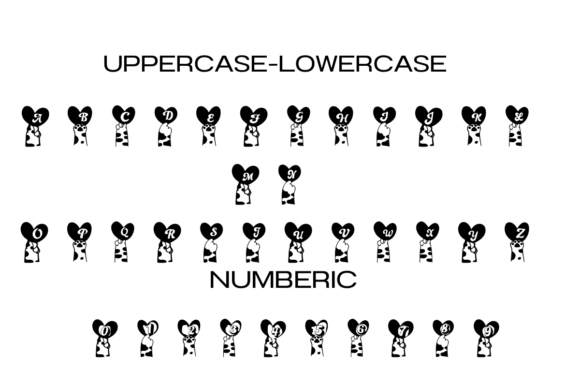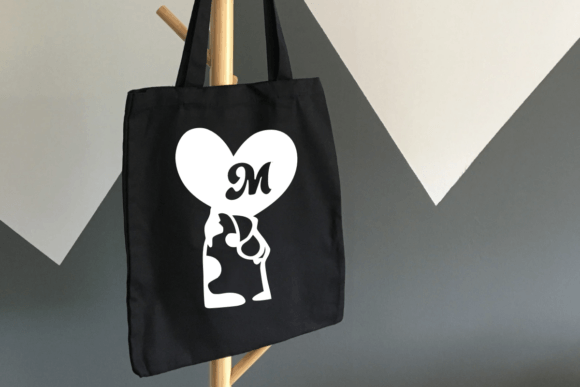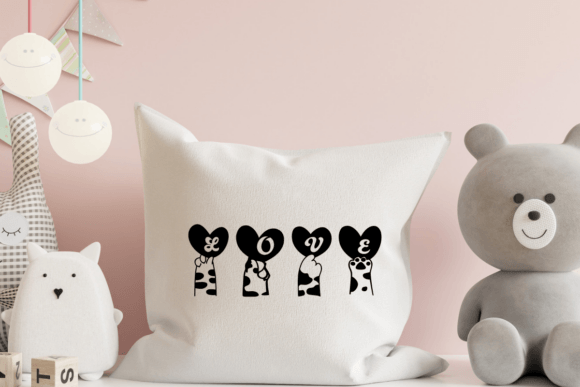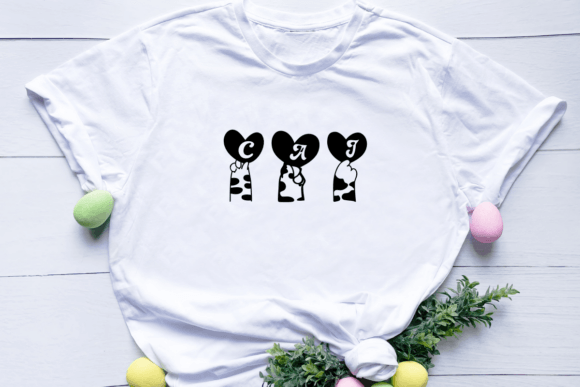
Introducing Cat Paws Font: The Purrfect Addition to Your Design Collection
Are you tired of using the same old fonts in your designs? Look no further! Cat Paws Font is a delightful and whimsical decorative font that’s sure to bring a smile to your face and a touch of joy to your creations. In this article, we’ll dive into the world of Cat Paws Font, exploring its features, benefits, and uses, as well as provide tips and inspiration for designers and crafters.
What is Cat Paws Font?
Cat Paws Font is a unique and playful decorative font that’s designed to add a touch of whimsy and fun to your designs. With its cute and quirky style, this font is perfect for creatives who want to make their projects stand out from the crowd. Whether you’re working on a graphic design project, crafting a handmade card, or creating digital art, Cat Paws Font is the perfect addition to your design toolkit.
Features of Cat Paws Font
So, what makes Cat Paws Font so special? Here are just a few of its key features:
- Cute and quirky design: Cat Paws Font features adorable cat paw prints that are sure to delight cat lovers and design enthusiasts alike.
- Decorative style: This font is perfect for adding a touch of elegance and sophistication to your designs, while still maintaining a playful and fun vibe.
- High-quality design: Cat Paws Font is designed with high-quality graphics, ensuring that it looks great in any size or resolution.
Benefits of Using Cat Paws Font
So, why should you choose Cat Paws Font for your next design project? Here are just a few benefits of using this amazing font:
- Adds a touch of personality: Cat Paws Font allows you to add a touch of personality and whimsy to your designs, making them more engaging and memorable.
- Perfect for cat lovers: If you’re a cat lover or creating a design for a cat-themed project, Cat Paws Font is the purrfect choice.
- Versatile: This font can be used in a variety of design projects, from digital art to handmade crafts.
- Unique: Cat Paws Font is a one-of-a-kind font that’s sure to make your designs stand out from the crowd.
Using Cat Paws Font in Your Designs
So, how can you use Cat Paws Font in your designs? Here are a few ideas to get you started:
- Digital art: Use Cat Paws Font to add a touch of whimsy to your digital art projects, such as illustrations, graphics, and animations.
- Handmade crafts: Add a personal touch to your handmade crafts, such as cards, scrapbook pages, and journal entries.
- Graphic design: Use Cat Paws Font in your graphic design projects, such as logos, brochures, and posters.
- Social media graphics: Add a touch of personality to your social media graphics, such as Facebook posts, Instagram stories, and Twitter headers.
Here are a few tips and inspiration to help you get the most out of Cat Paws Font:
- Experiment with different colors: Try pairing Cat Paws Font with different colors and textures to create unique and eye-catching designs.
- Mix and match with other fonts: Combine Cat Paws Font with other fonts to create interesting and dynamic typography.
- Use it for headings and titles: Cat Paws Font is perfect for headings and titles, adding a touch of personality and whimsy to your designs.
In conclusion, Cat Paws Font is a delightful and quirky decorative font that’s sure to bring a touch of joy and personality to your designs. With its cute and quirky style, high-quality design, and ease of use, this font is perfect for designers and crafters of all skill levels. Whether you’re working on a digital art project, crafting a handmade card, or creating a graphic design project, Cat Paws Font is the purrfect addition to your design toolkit.